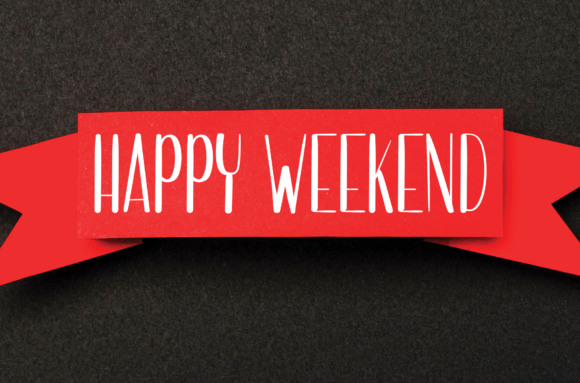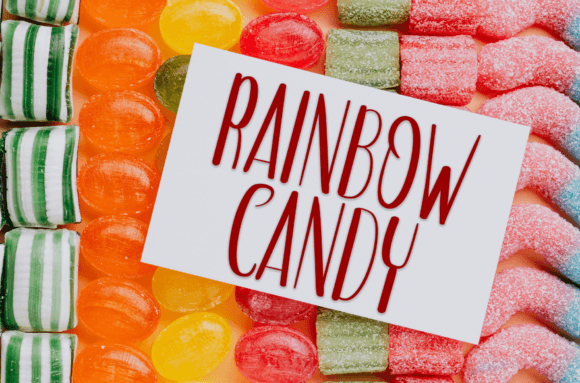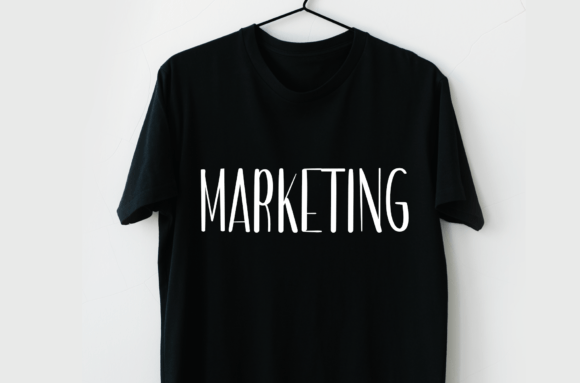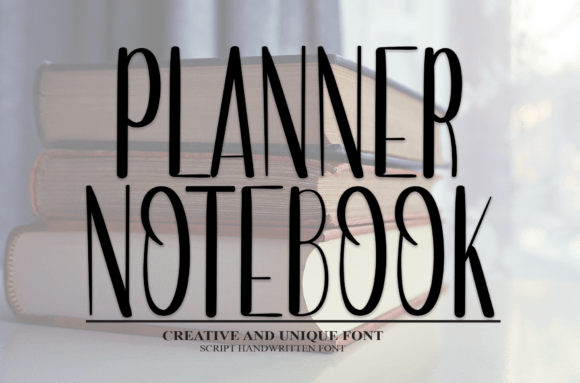
Introduction to Planner Notebook Font
Planner Notebook is a cool, simple, and playful handwritten font.
Incredibly versatile, this font fits a wide pool of designs, elevating them to the highest levels Add this font to your favorite creative ideas and notice how it makes them come alive.
Key Features of Planner Notebook Font